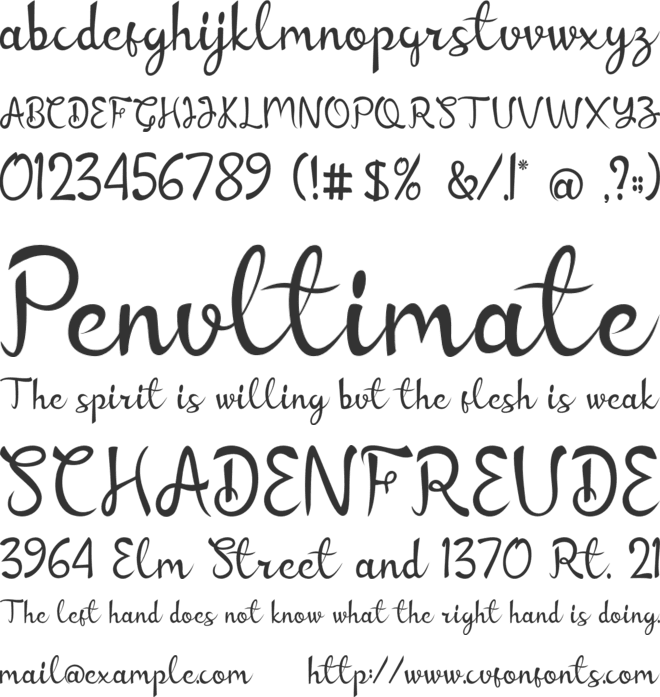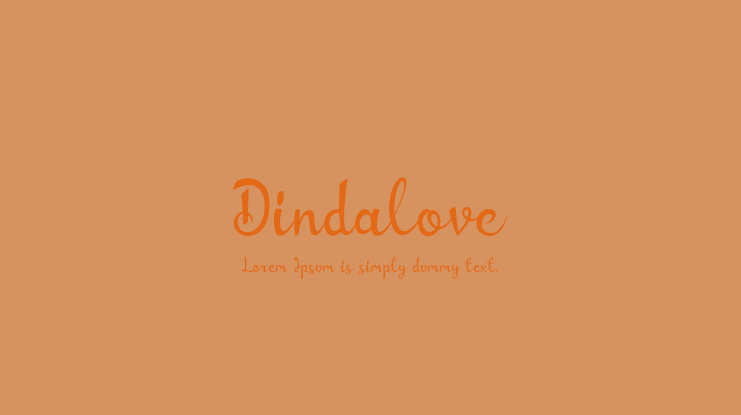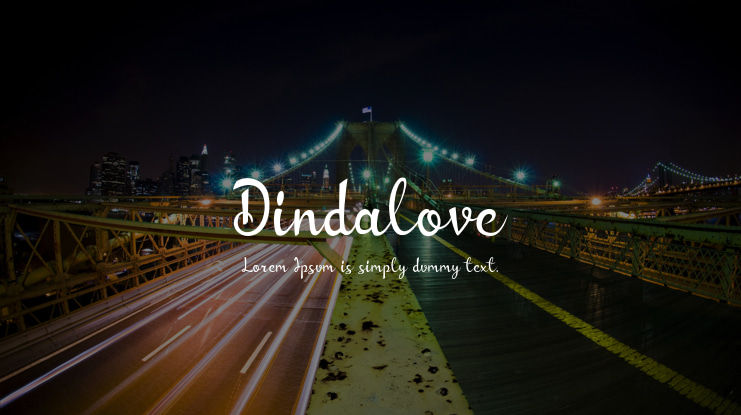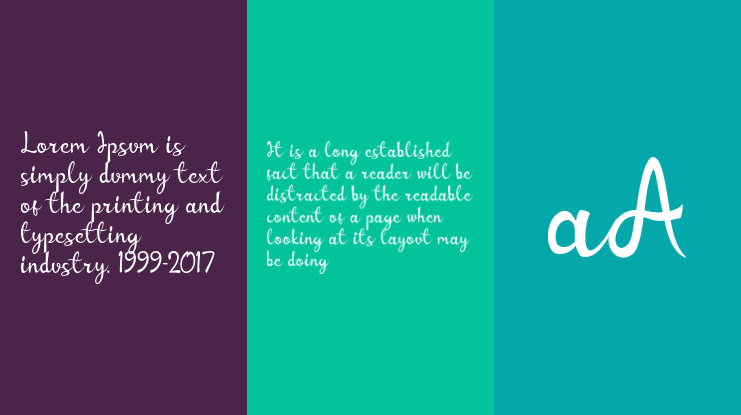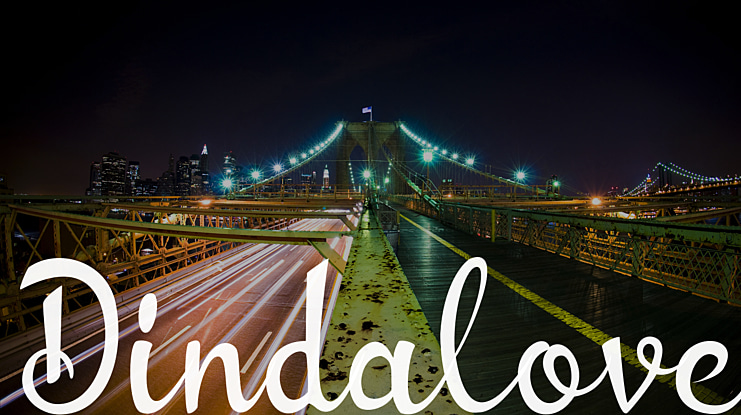
Dindalove Font
Dindalove is a romantic and sweet handwritten font. Its distinct and well balanced letters make this font a masterpiece. Fall in love with its incredibly versatile style and use it to create spectacular designs!
Dindalove is PUA encoded which means you can access all of the glyphs and swashes with ease!